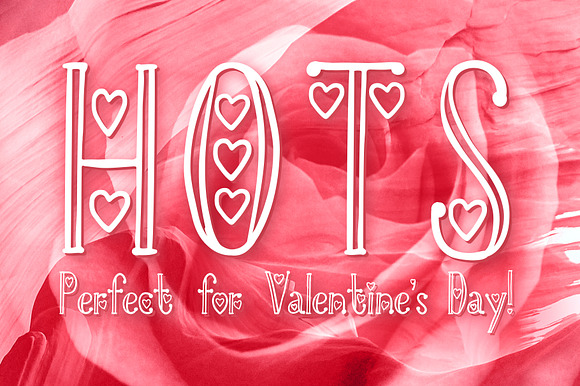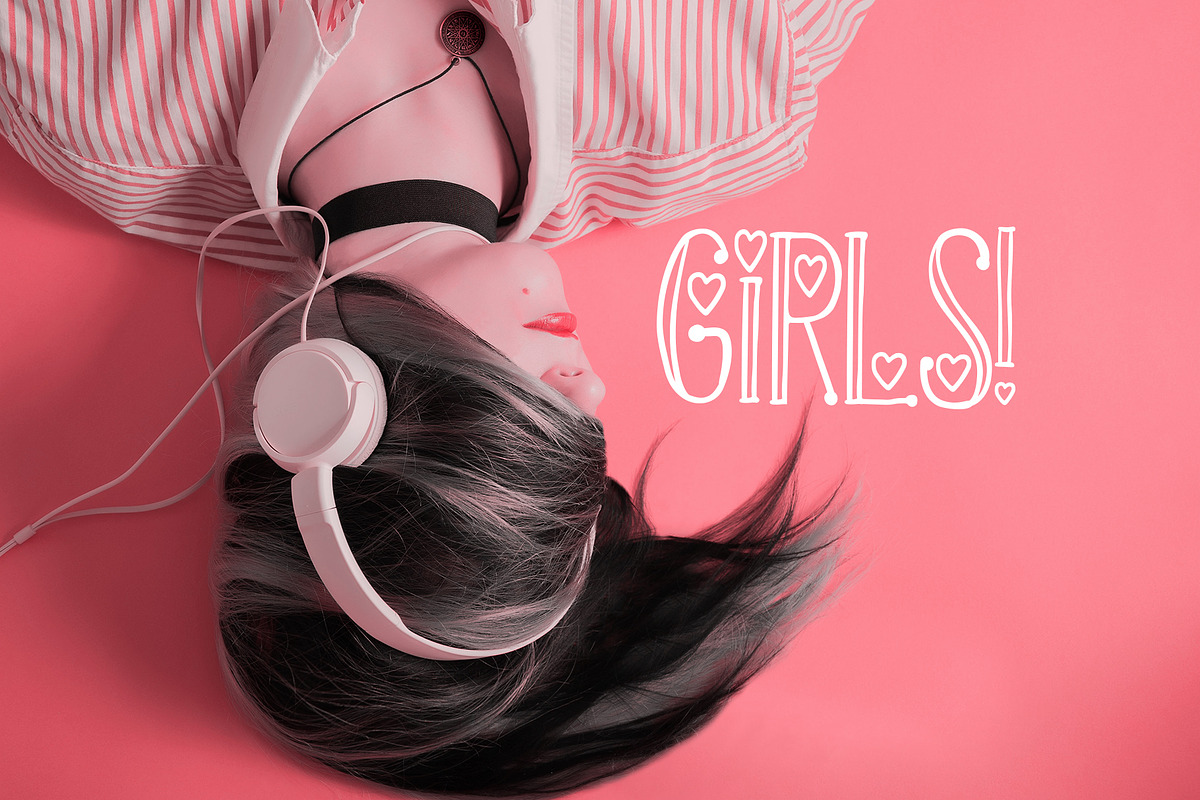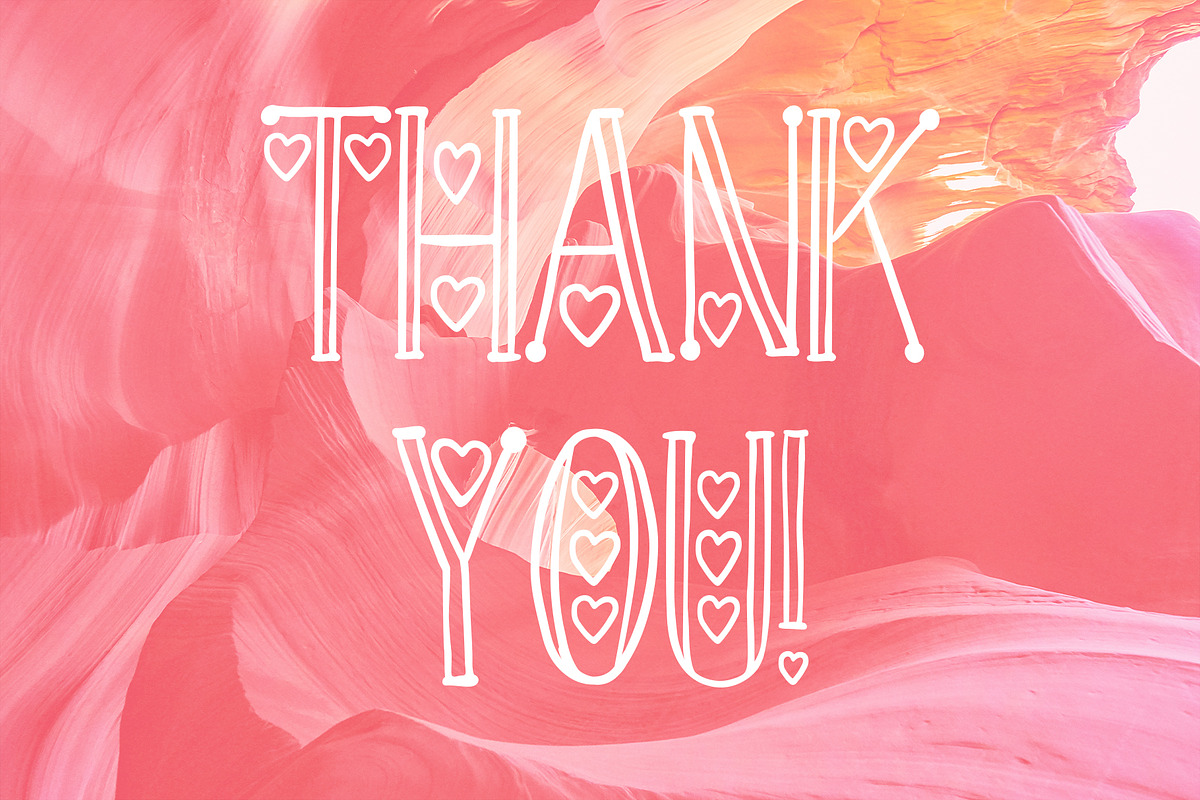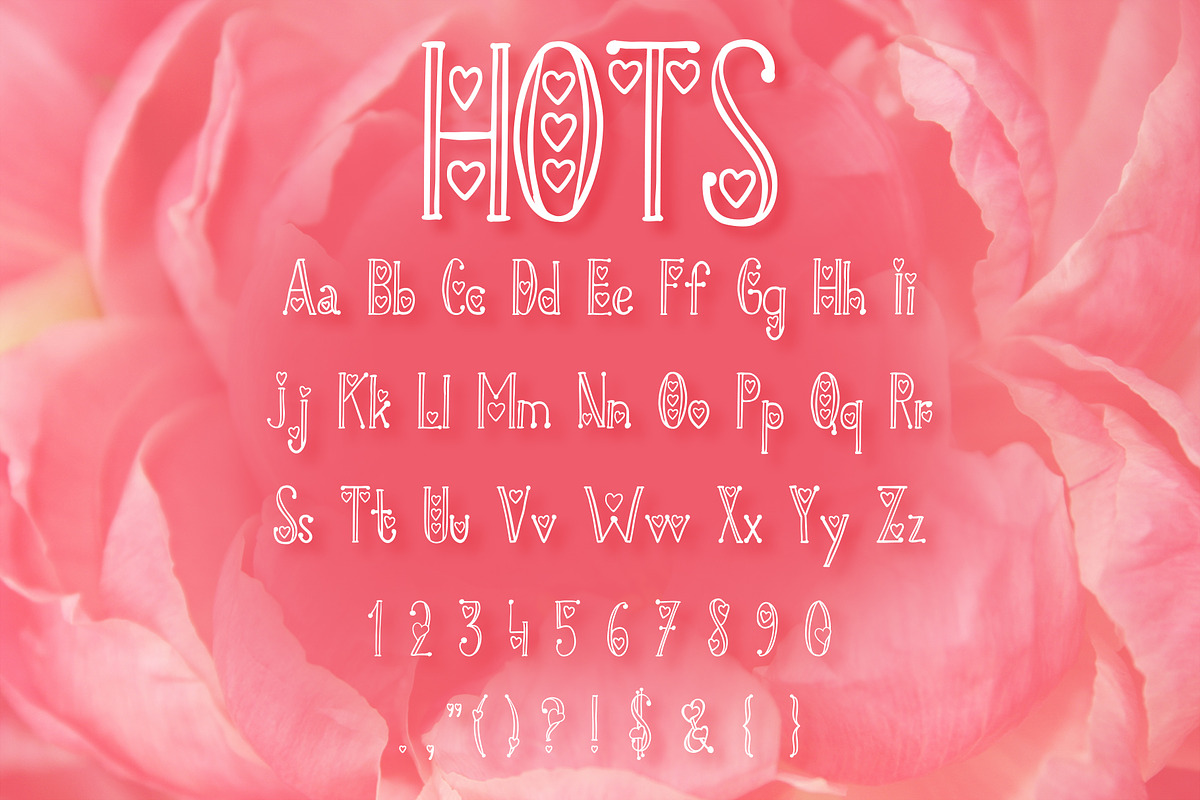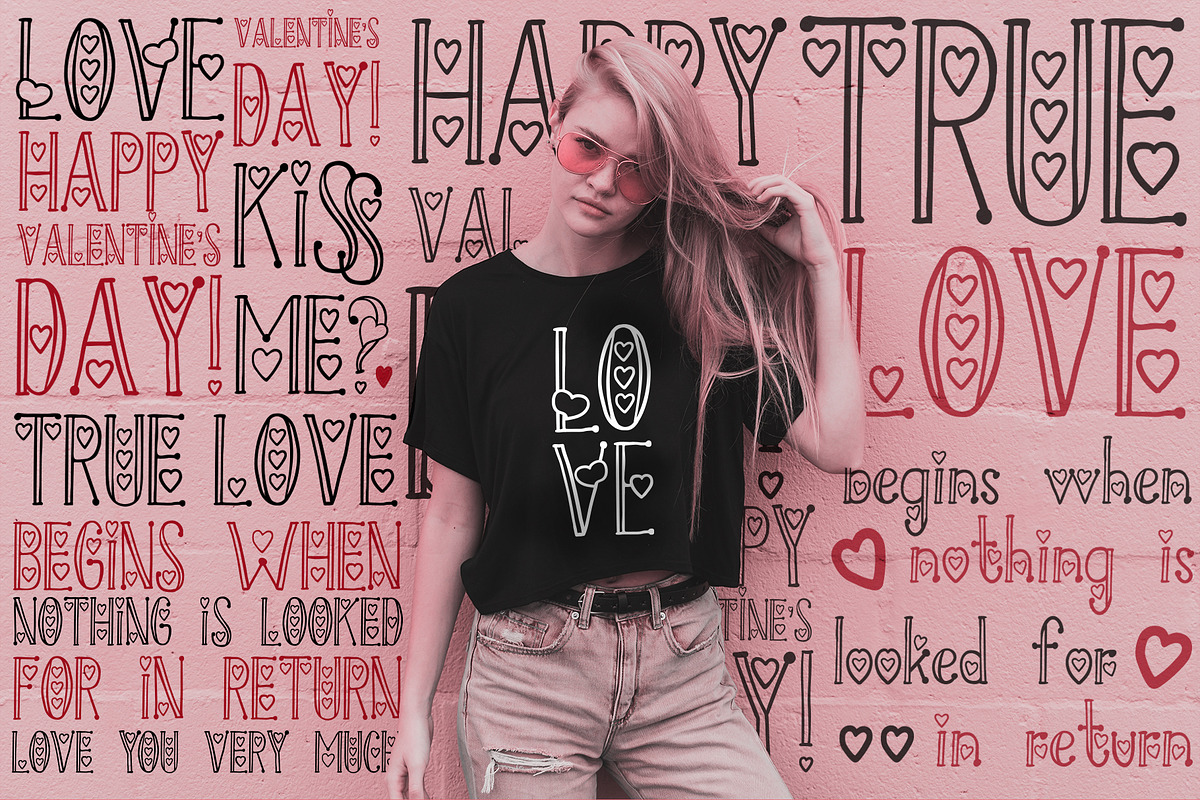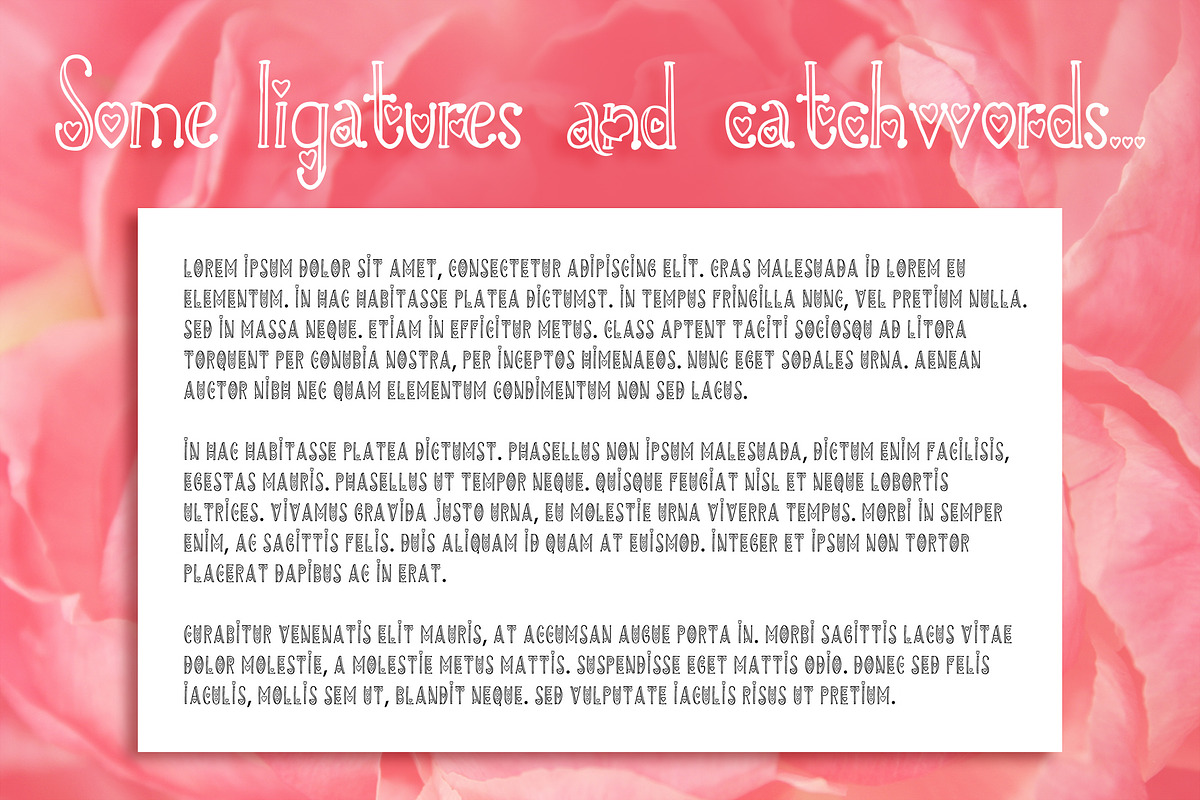
HOTS - Perfect Valentine's Day Font
Are you ready for Valentine's Day?
I've got a perfect font for you!
Decorative hand-drawn hearts combine with beautiful characters! Perfect for Valentine's Day gift cards, packaging design, sweet wishes for lovers...
- Decorative hand-drawn hearts combine with beautiful characters!